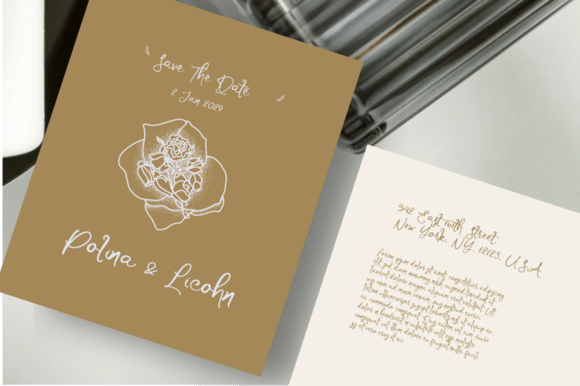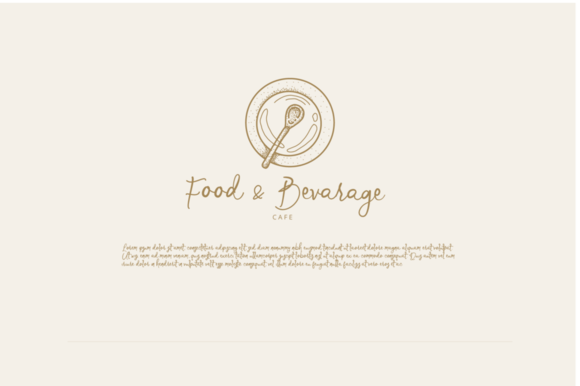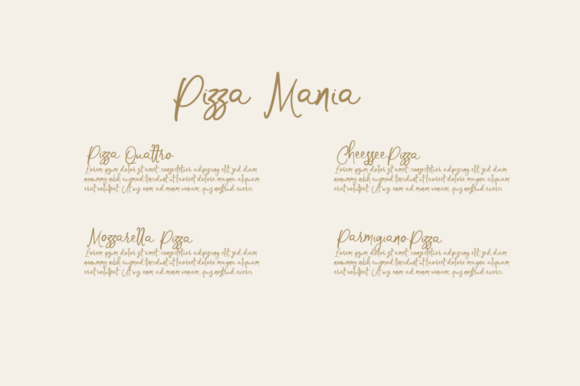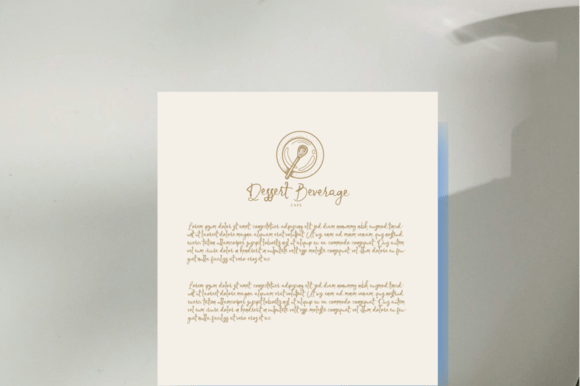
Introducing De Flamour Whimsical Font: Adding a Touch of Magic to Your Designs
In the world of typography, few fonts manage to capture the essence of whimsy and charm as effectively as the De Flamour Whimsical Font. This unique, expressive, and characterful handwritten script font is designed to bring a touch of magic to every design it touches. Whether you’re working on children’s storybooks, whimsical branding, imaginative editorial layouts, or simply looking to add a dash of personality to your social media quotes and greeting cards, De Flamour Whimsical is the perfect choice.
The Characteristics of De Flamour Whimsical Font
De Flamour Whimsical is a lighthearted and airy handwritten font that stands out with its elongated, dancing strokes and delicate loops. These features create a sense of movement and joy, making it an ideal fit for projects that require a playful yet refined aesthetic. The font’s tall, thin silhouette ensures it stands out with a refined elegance while maintaining its playful, handmade spirit.
Perfect Pairings for De Flamour Whimsical
To truly bring out the best in the De Flamour Whimsical font, consider pairing it with soft watercolor illustrations or pastel color palettes. This combination creates a dreamlike aesthetic that is perfect for children’s books, greeting cards, and other projects where a touch of whimsy is desired. The delicate and airy nature of the font makes it a fantastic tool for creating unique social media quotes or personalized greeting cards that feel intimate and sincere.
Why Choose De Flamour Whimsical Font?
De Flamour Whimsical is more than just a font; it’s a way to add personality and emotion to your designs. Here are a few reasons why designers and crafters love this whimsical typeface:
- Unique and Expressive: De Flamour Whimsical offers a level of uniqueness that standard fonts simply can’t match. Its characterful and handwritten nature ensures that your designs stand out.
- Versatile: Whether you’re working on digital projects or print materials, De Flamour Whimsical adapts beautifully to various mediums.
- Elegant yet Playful: The font strikes the perfect balance between elegance and playfulness, making it suitable for a wide range of projects.
Creative Applications of De Flamour Whimsical Font
The creative possibilities with De Flamour Whimsical are endless. Here are a few ideas to get you started:
- Children’s Storybooks: Bring your storybook characters to life with a font that exudes whimsy and charm.
- Whimsical Branding: Create a memorable brand identity with a font that is both playful and elegant.
- Imaginative Editorial Layouts: Add a touch of magic to your editorial designs, making them stand out in a sea of standard fonts.
- Social Media Quotes: Make your social media posts more engaging with unique and eye-catching typography.
- Personalized Greeting Cards: Add a personal touch to your greeting cards, making them feel more intimate and sincere.
De Flamour Whimsical Font is a versatile and charming typeface that can elevate your designs to a whole new level. Its unique blend of elegance and playfulness makes it an excellent choice for designers and crafters looking to add a touch of magic to their projects. With its PUA encoding for easy access to special characters and glyphs, you can seamlessly integrate De Flamour Whimsical into your creative workflow. So why settle for standard fonts when you can infuse your designs with a bit of whimsy and charm? Explore the creative possibilities with De Flamour Whimsical Font today and watch your designs come to life in a way you never thought possible.